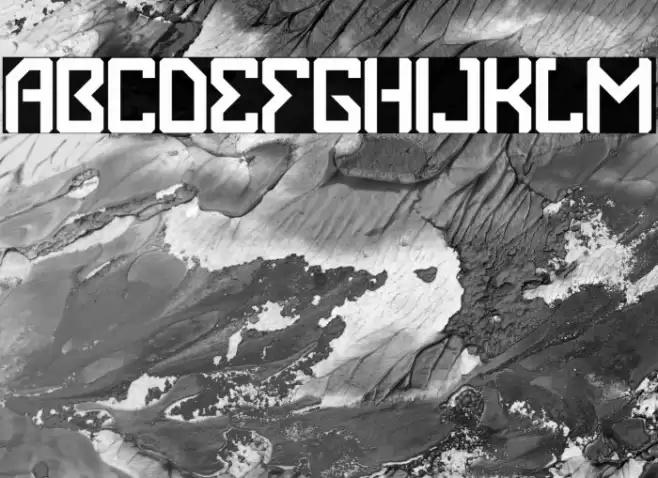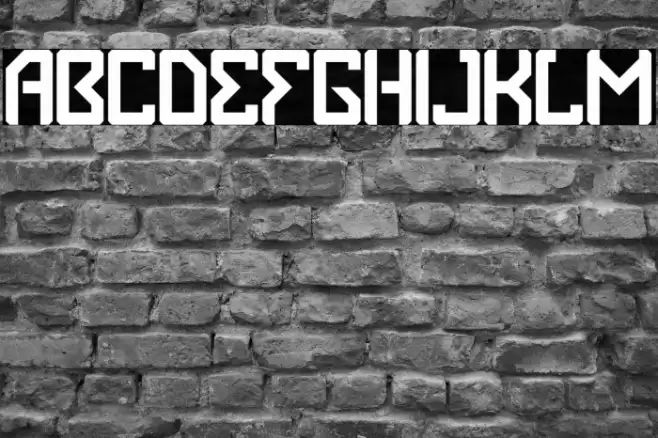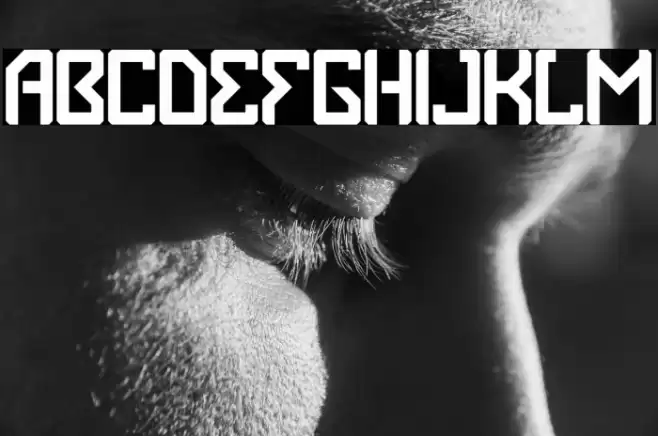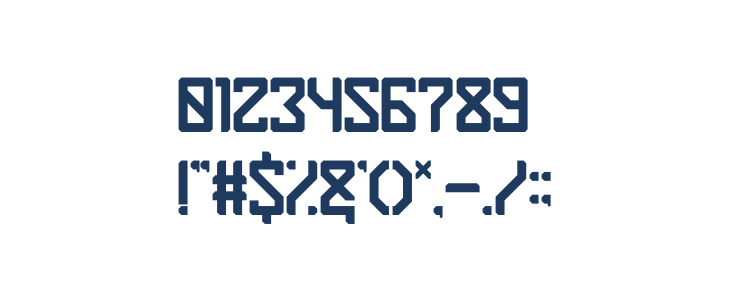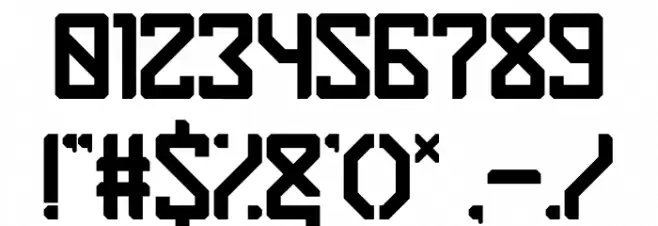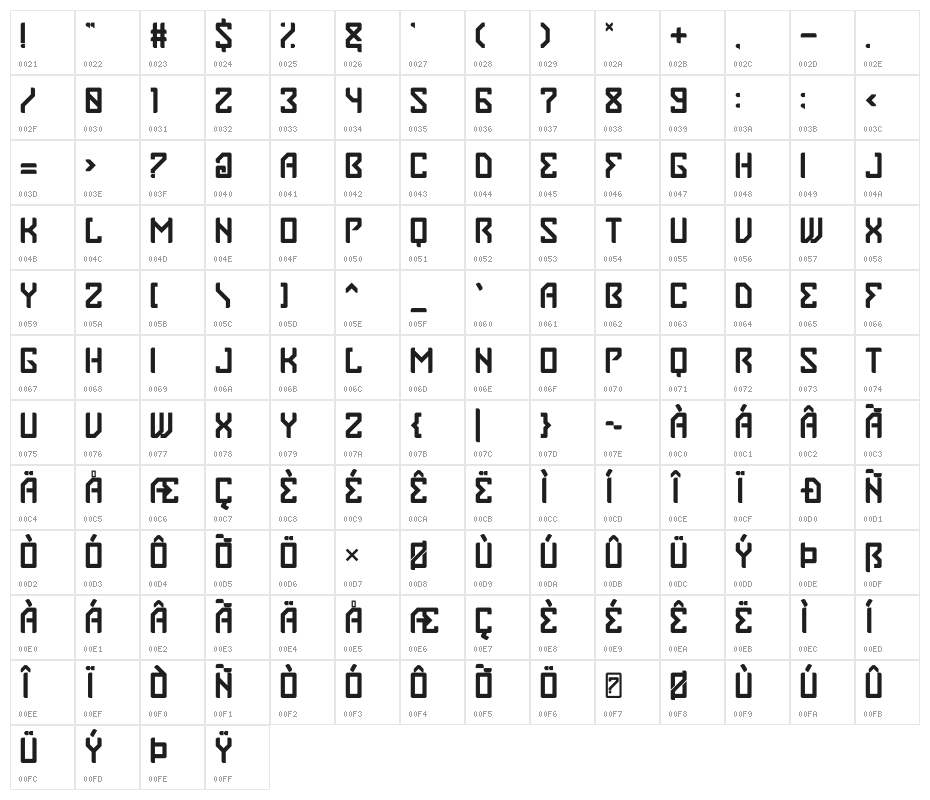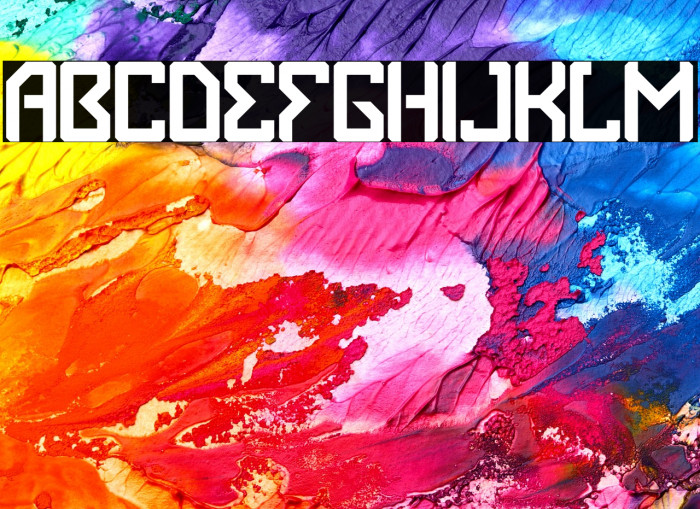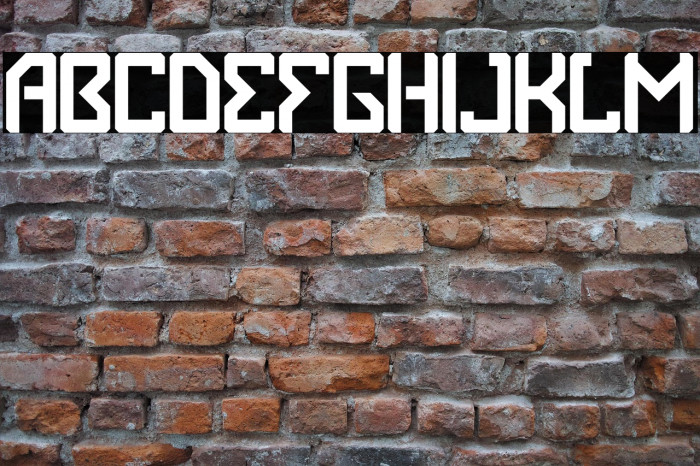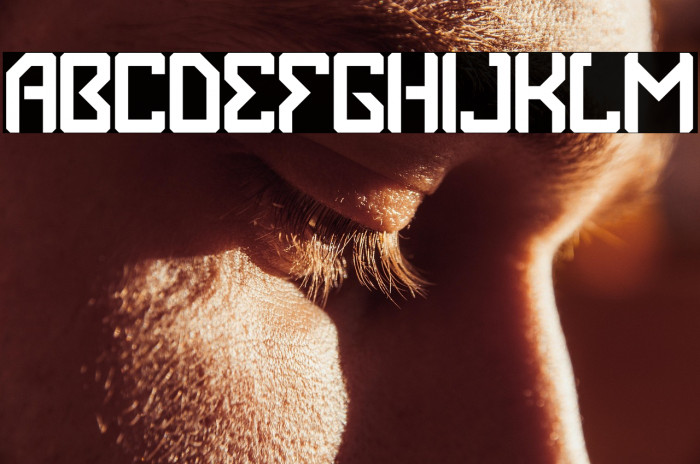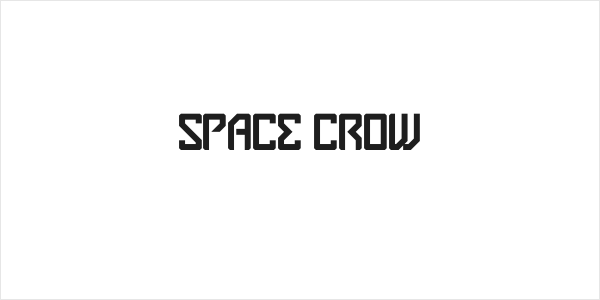
Space Crow Font
Space Crow Description
This font features a futuristic and geometric design, characterized by bold, angular lines and a distinct block-like appearance. The uppercase and lowercase letters share a consistent style, with sharp edges and a uniform thickness that conveys a sense of modernity and strength. The numerals and special characters maintain this cohesive look, making the font suitable for digital and tech-related themes. Its unique style is eye-catching and ideal for projects that require a modern and edgy aesthetic.
A futuristic, geometric font with bold, angular lines and a block-like appearance from Uncategorized fonts.
- Font: Space Crow
- Proposed Projects: Ideal for tech-related branding, video game titles, sci-fi posters, and digital media.
Space Crow UPPERCASE
Space Crow LOWERCASE
Space Crow OTHER CHARS